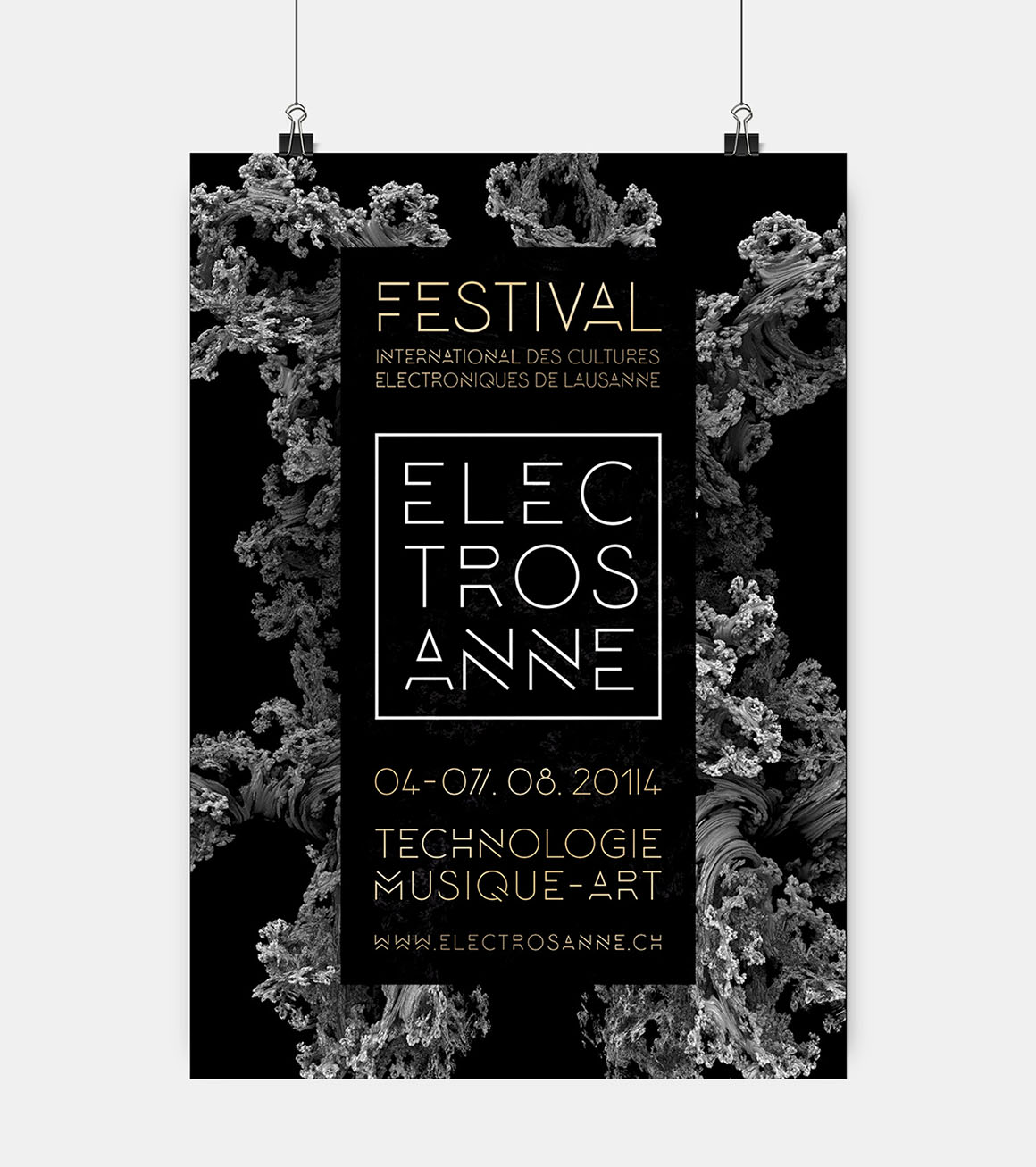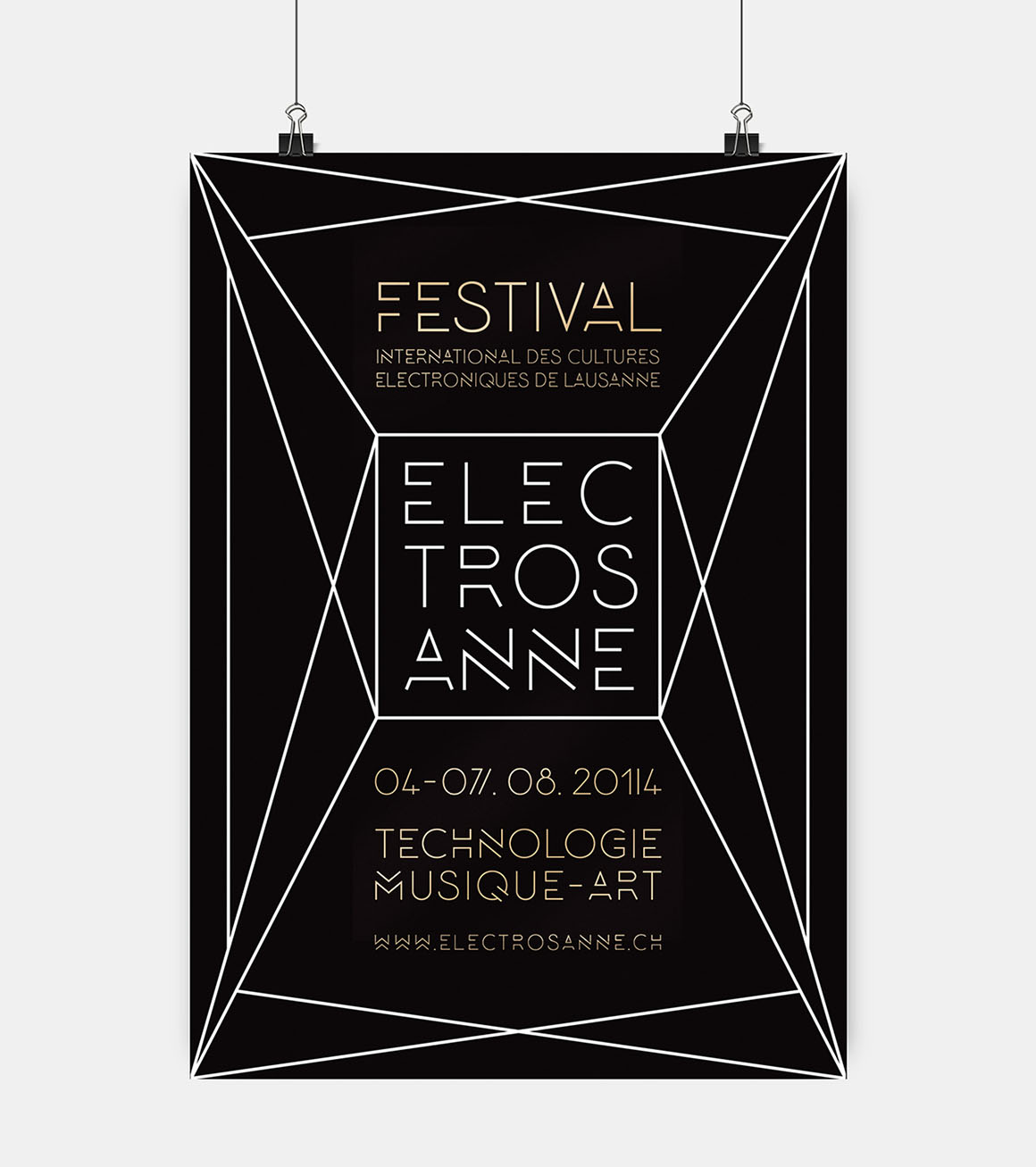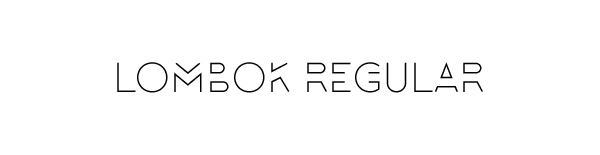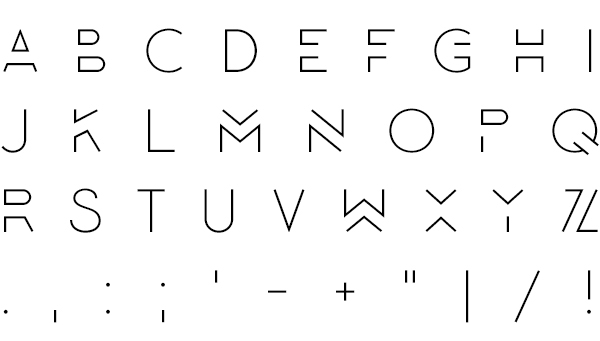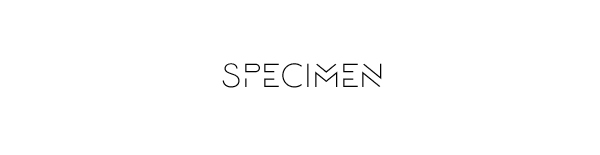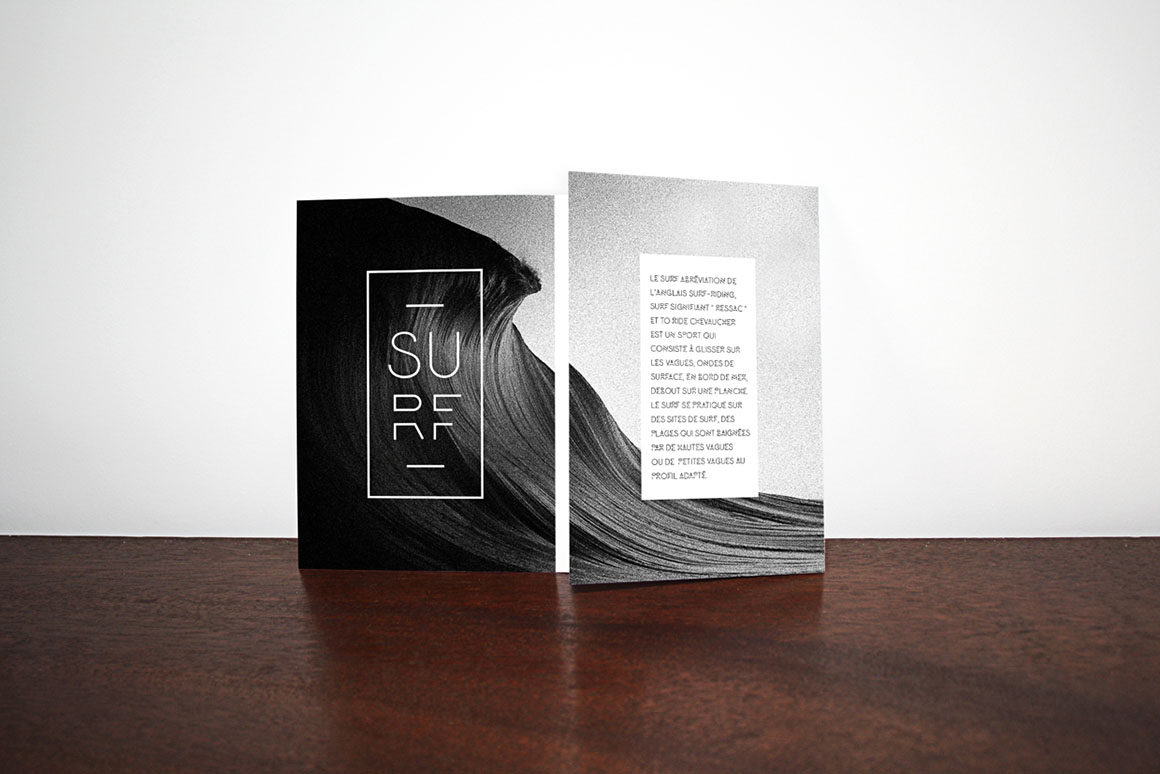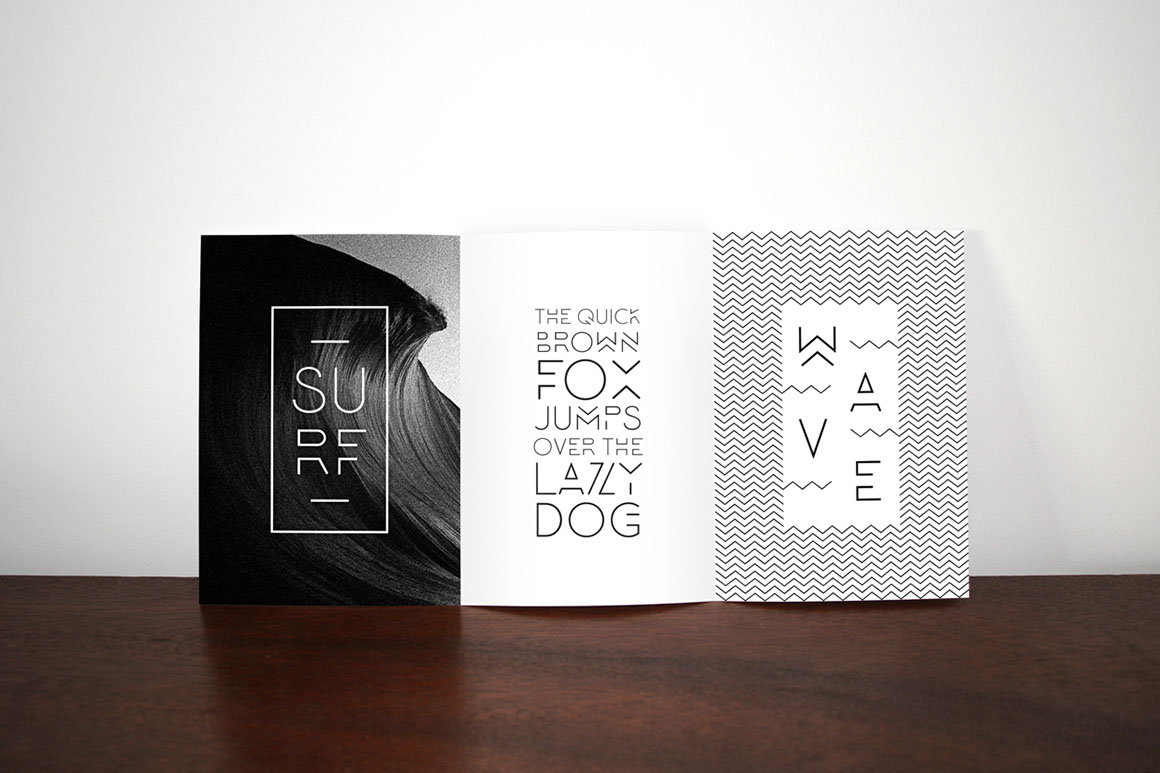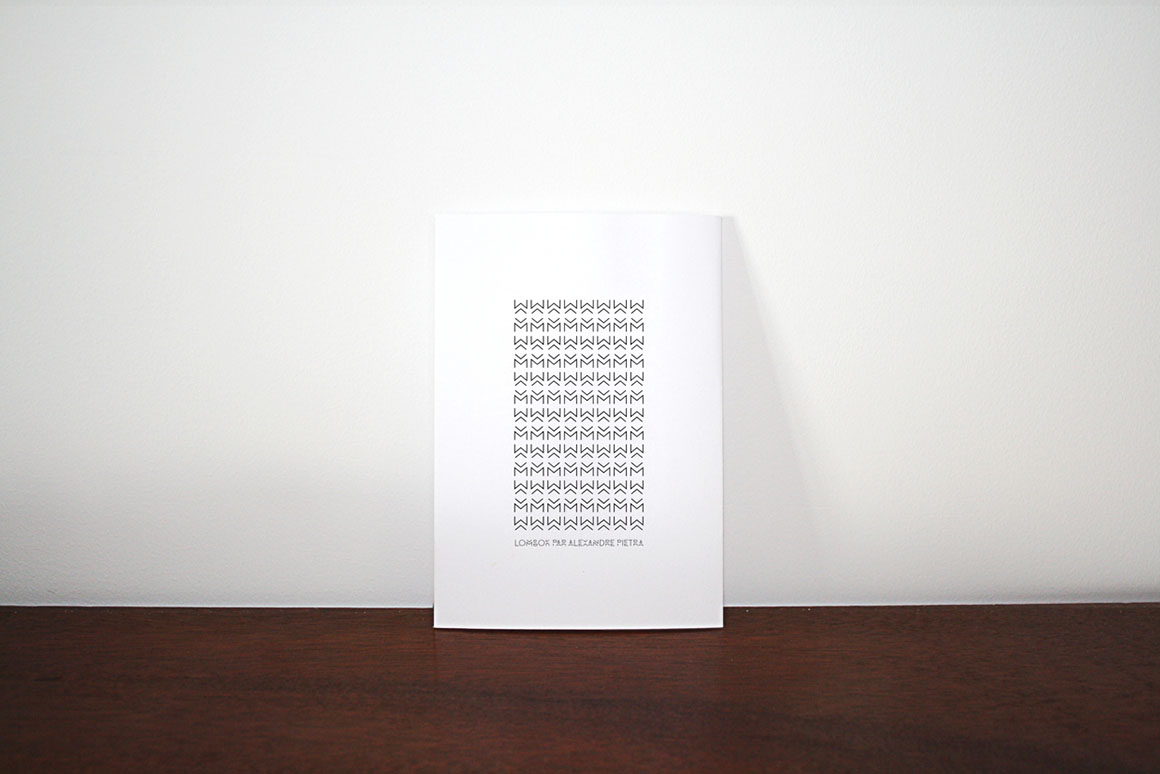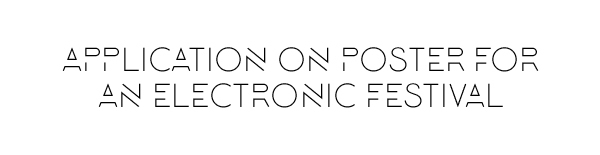
Lombok – Free Modern Font
This amazing clean & futuristic style custom font is from Alexandre Pietra. Download and enjoy 😉 Free only for personal use!